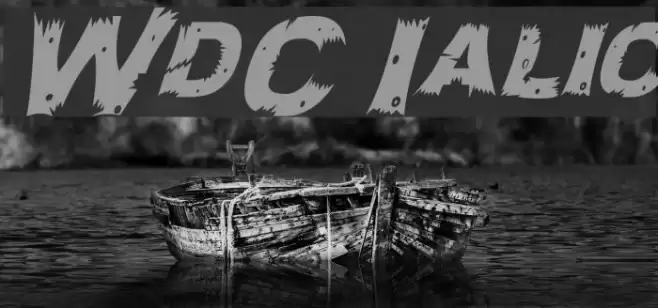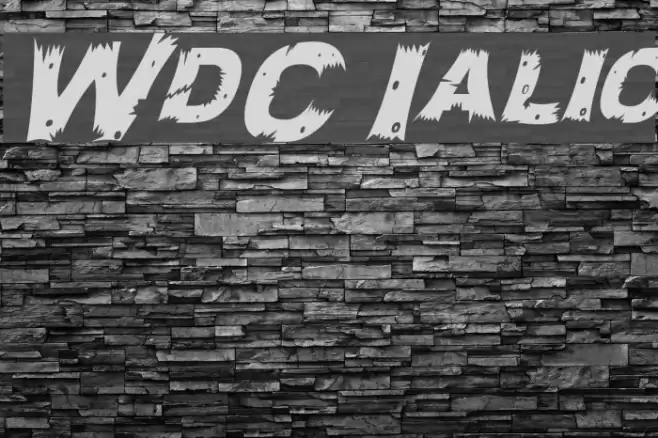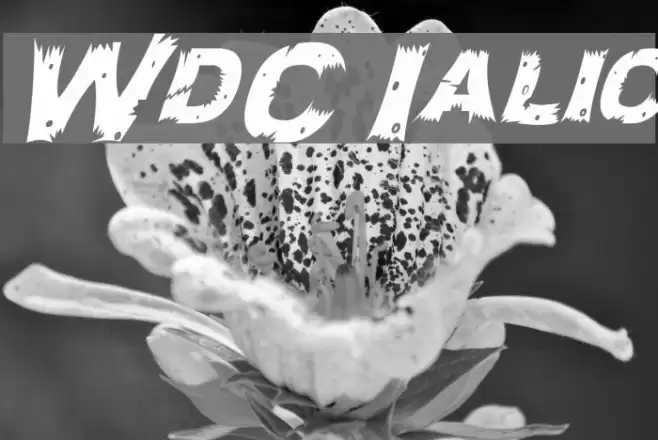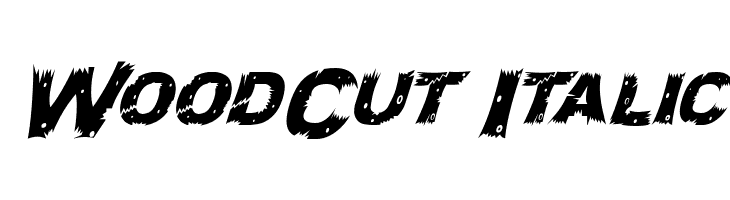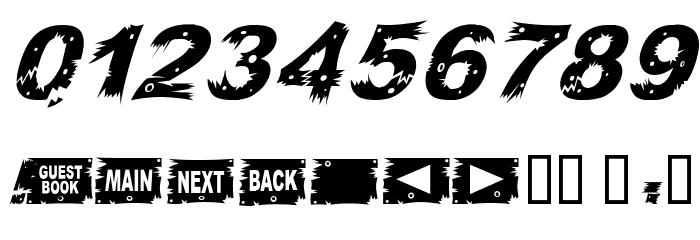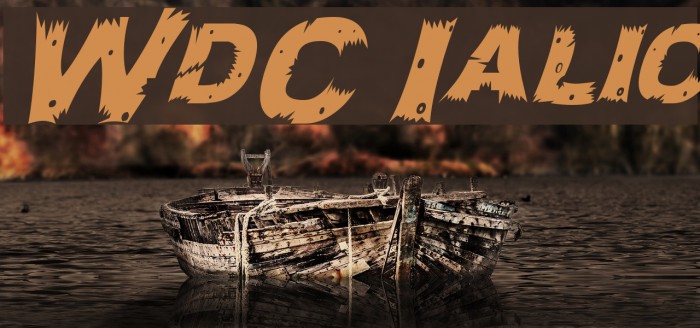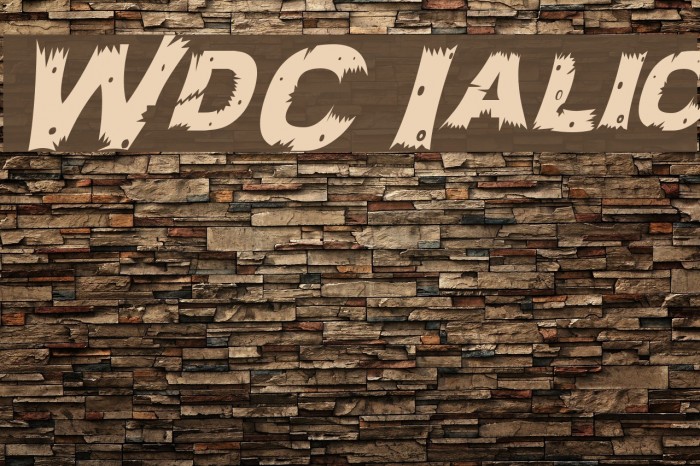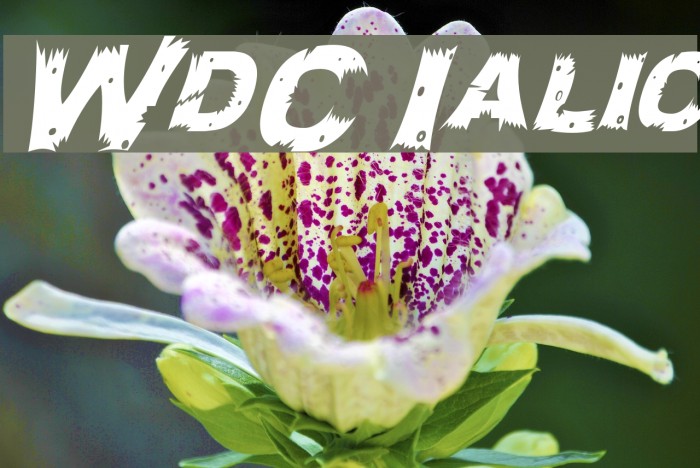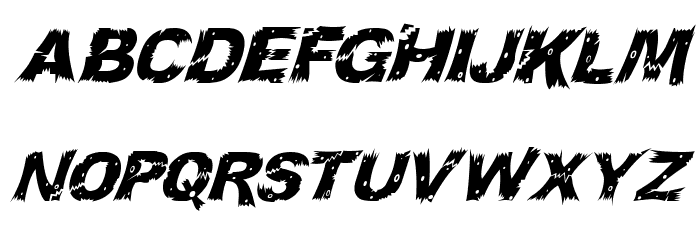
WoodCut Italic Font
WoodCut Italic Description
This font features a bold and dynamic style with a distinctive woodcut appearance. The characters are italicized, giving them a sense of movement and energy. The edges are jagged and rough, reminiscent of traditional woodcut prints, which adds a rustic and handcrafted feel. The uppercase and lowercase letters maintain a consistent style, with numbers and special characters following the same design principles. This font's unique texture and bold presence make it stand out, ideal for projects that require a strong visual impact.
A bold, italicized font with a woodcut texture and dynamic style.
- Proposed Projects: Ideal for posters, album covers, branding for artisanal products, or any design needing a bold, rustic aesthetic.